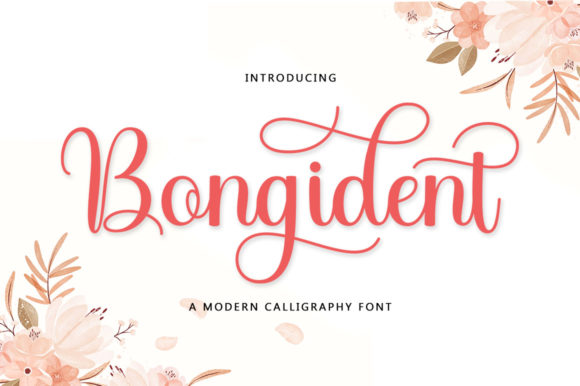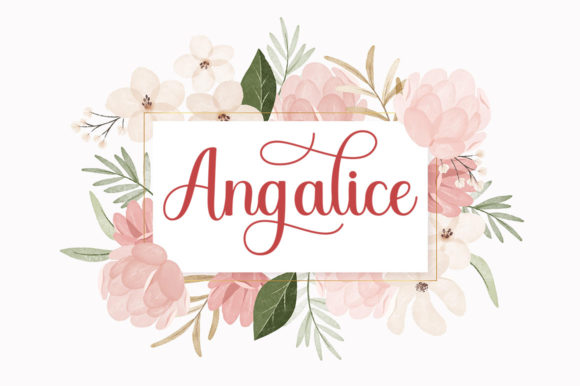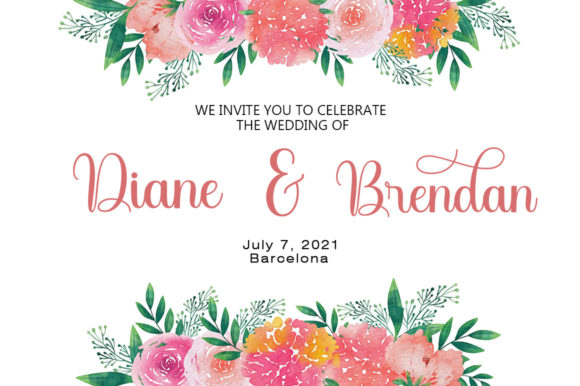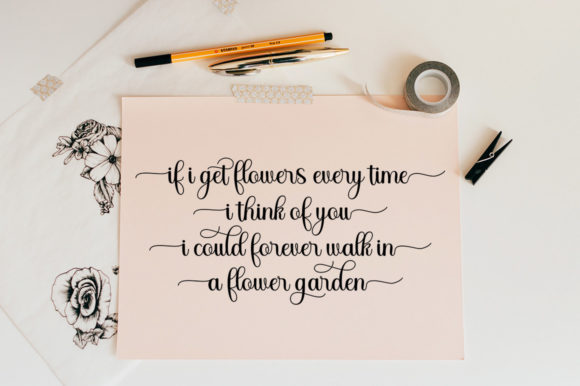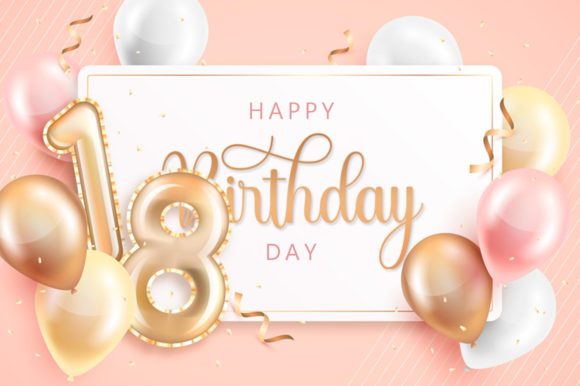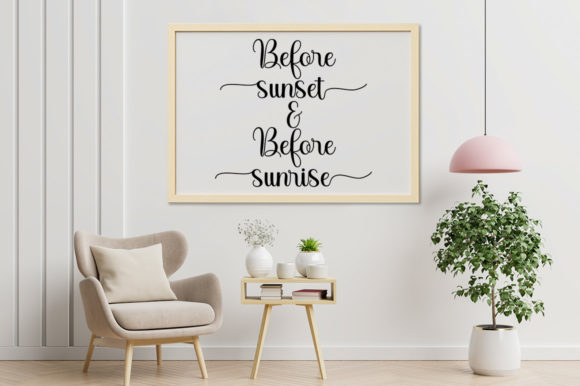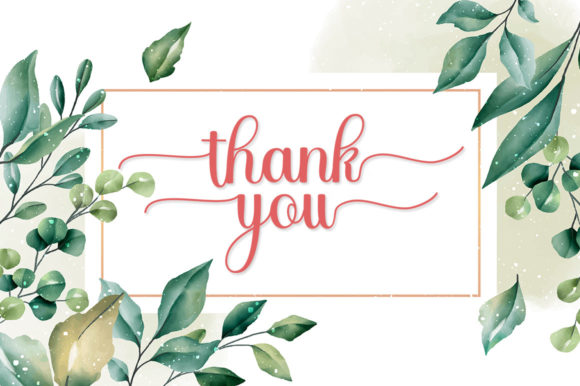
Bongident Script Font
Bongident Script is a lovely script font featuring charming, playful characters that seem to dance along the baseline. It is PUA encoded which means you can access all of the amazing glyphs and ligatures with ease!